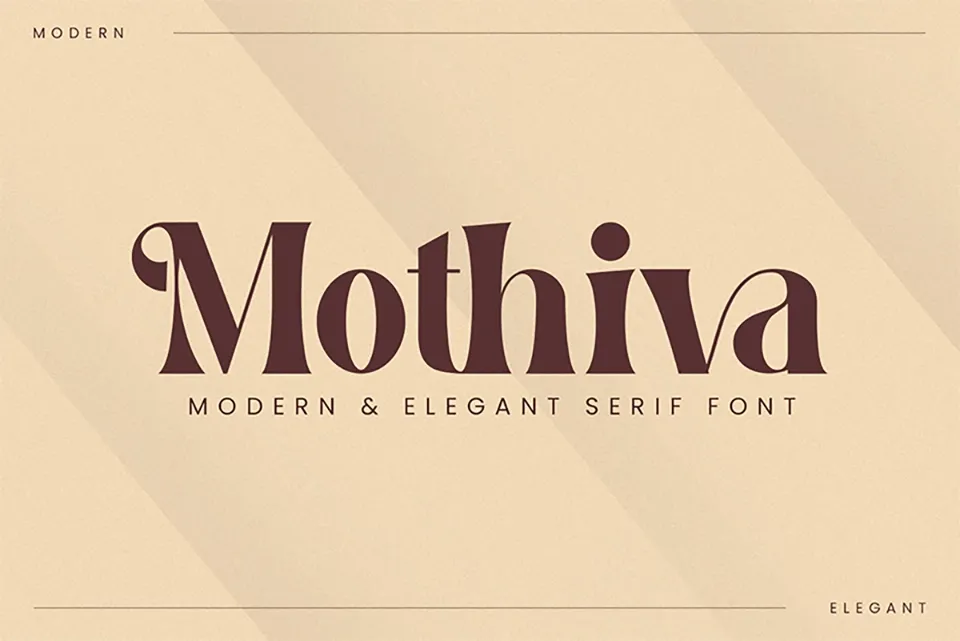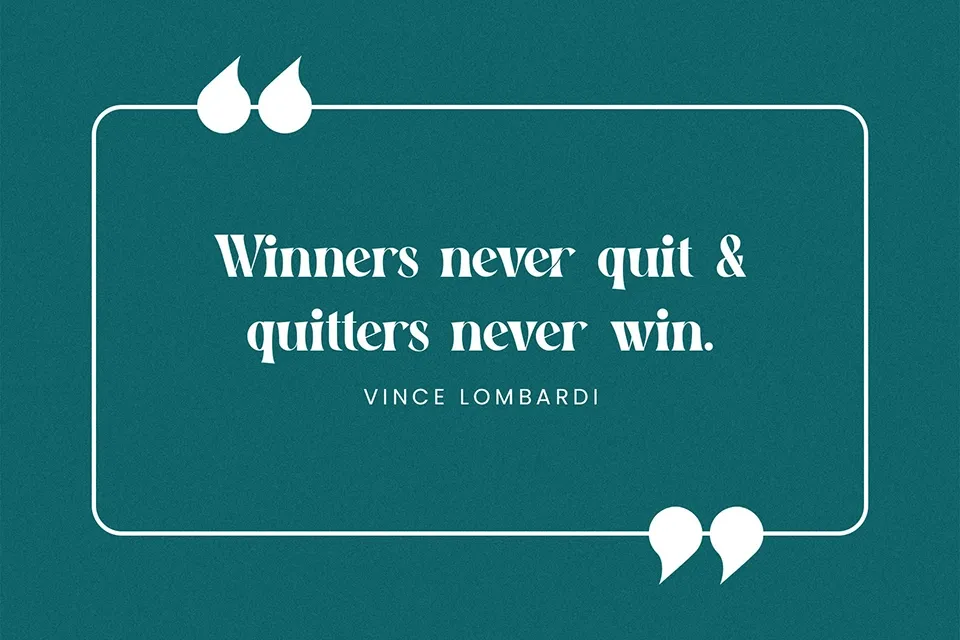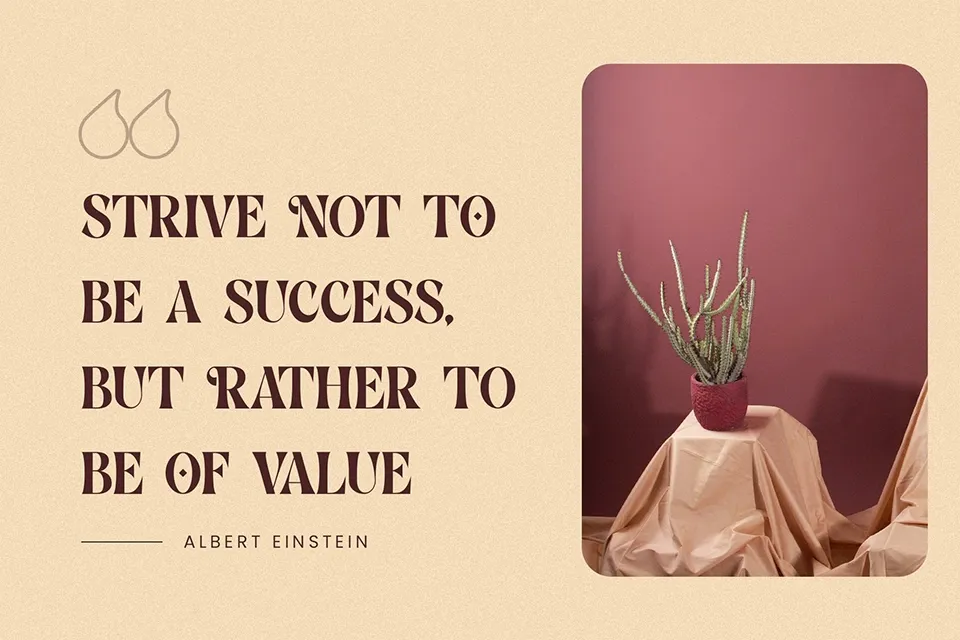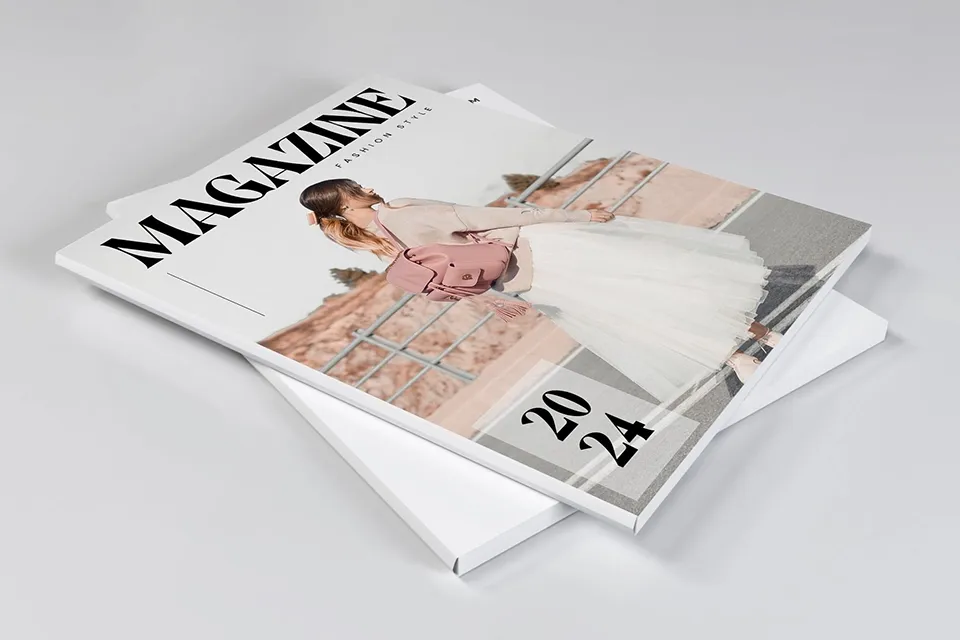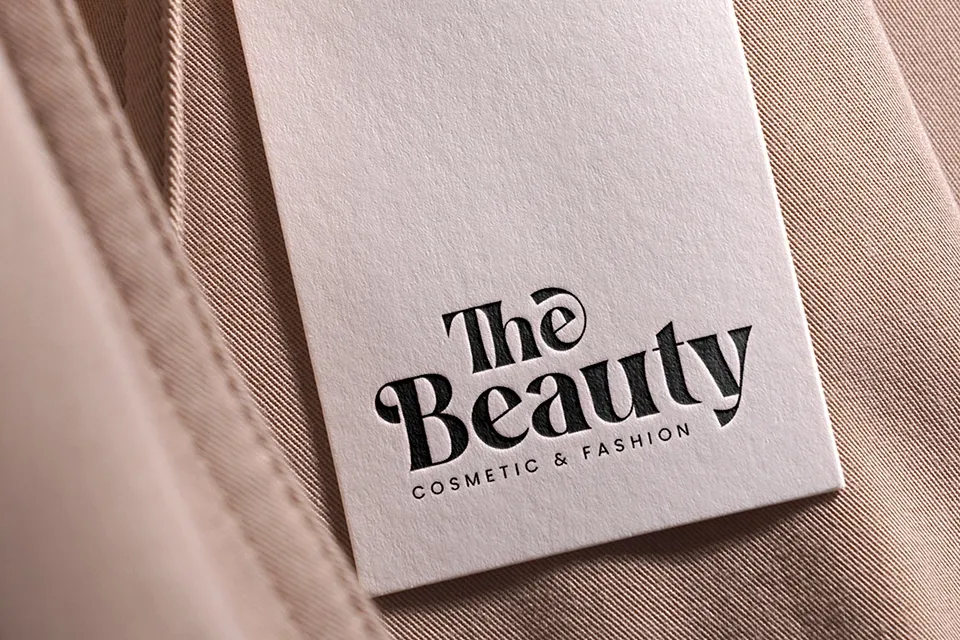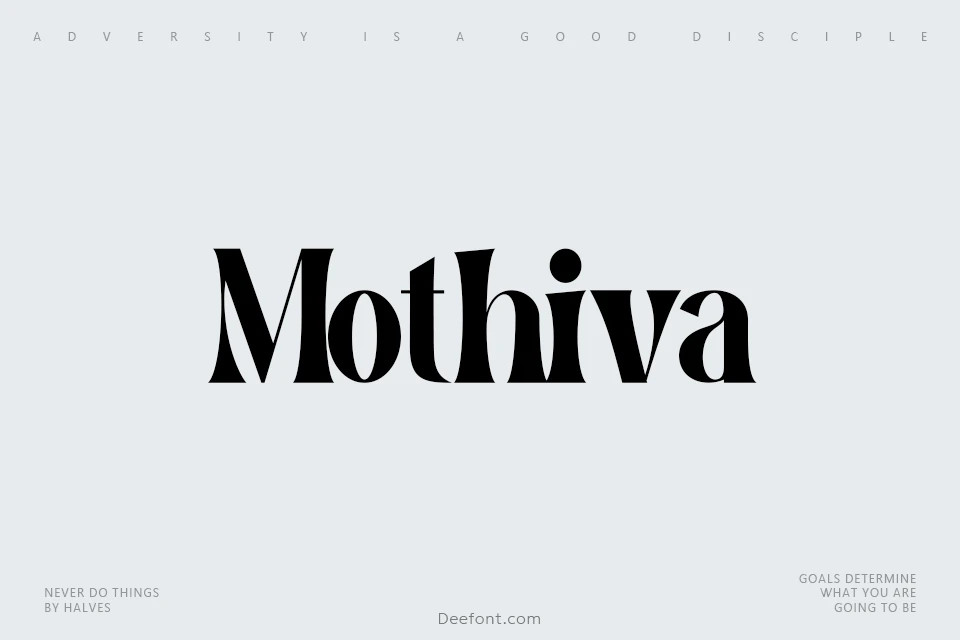
Mothiva Font
Mothiva is a modern and elegant serif font, characterized by its sophisticated design and unique letterforms. It showcases a distinct contrast between thick and thin strokes, blending classic serif structure with contemporary flair. Notable features include stylish curves, prominent ball terminals on some letters, and an overall refined appearance. The font exudes a sense of impact and polish, making it suitable for headlines, logos, branding projects, magazine layouts, and other designs seeking a blend of modern style and timeless elegance. Its character shapes offer a distinctive look for impactful typography.